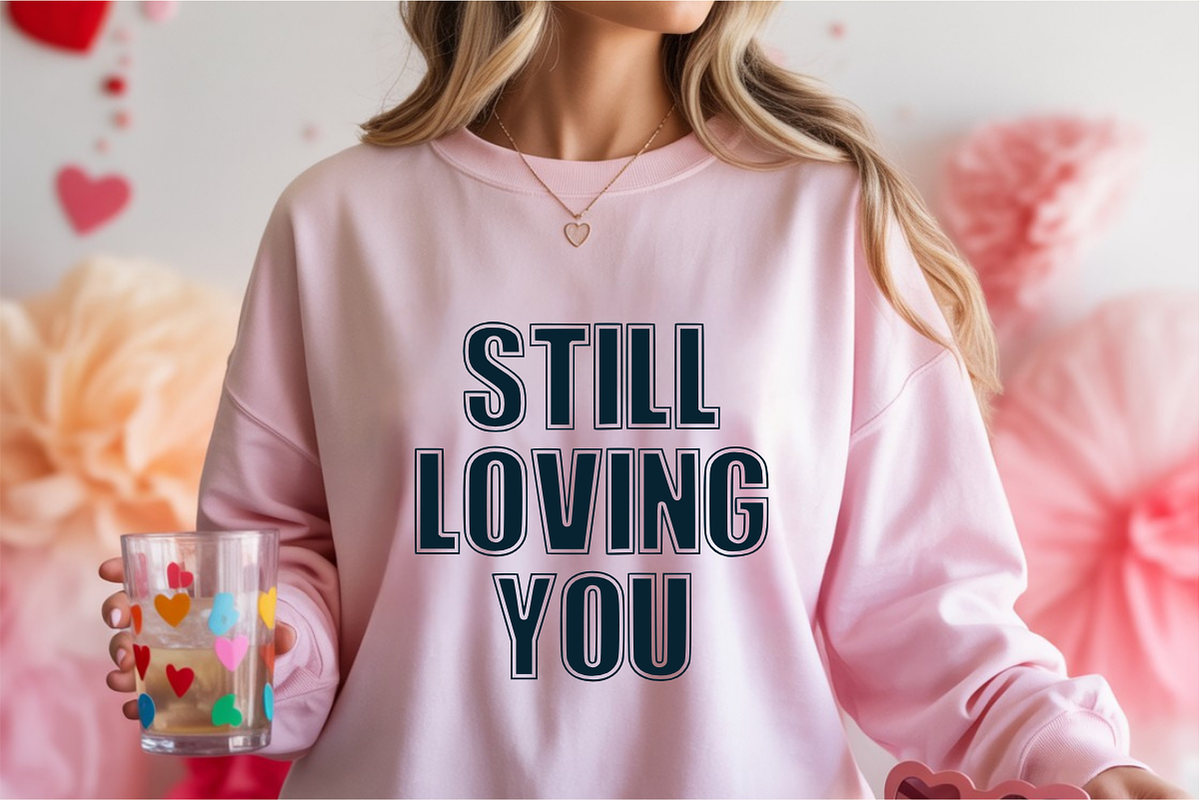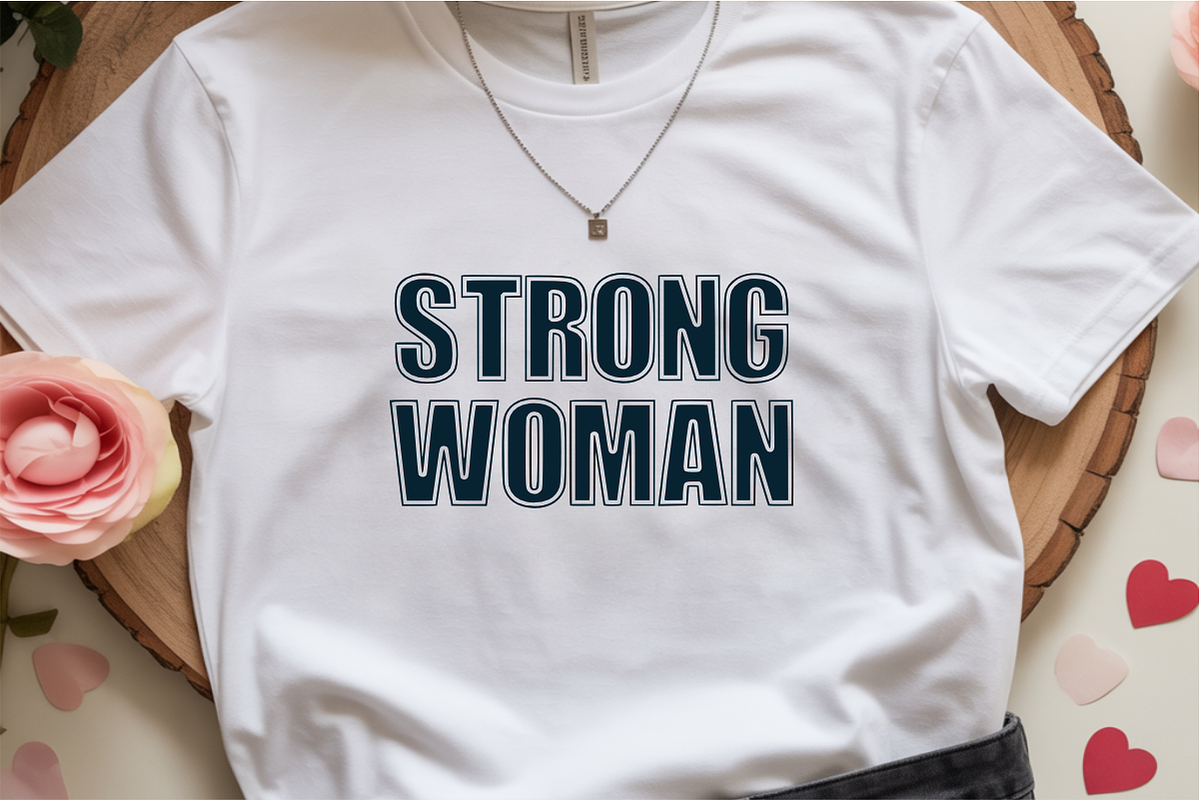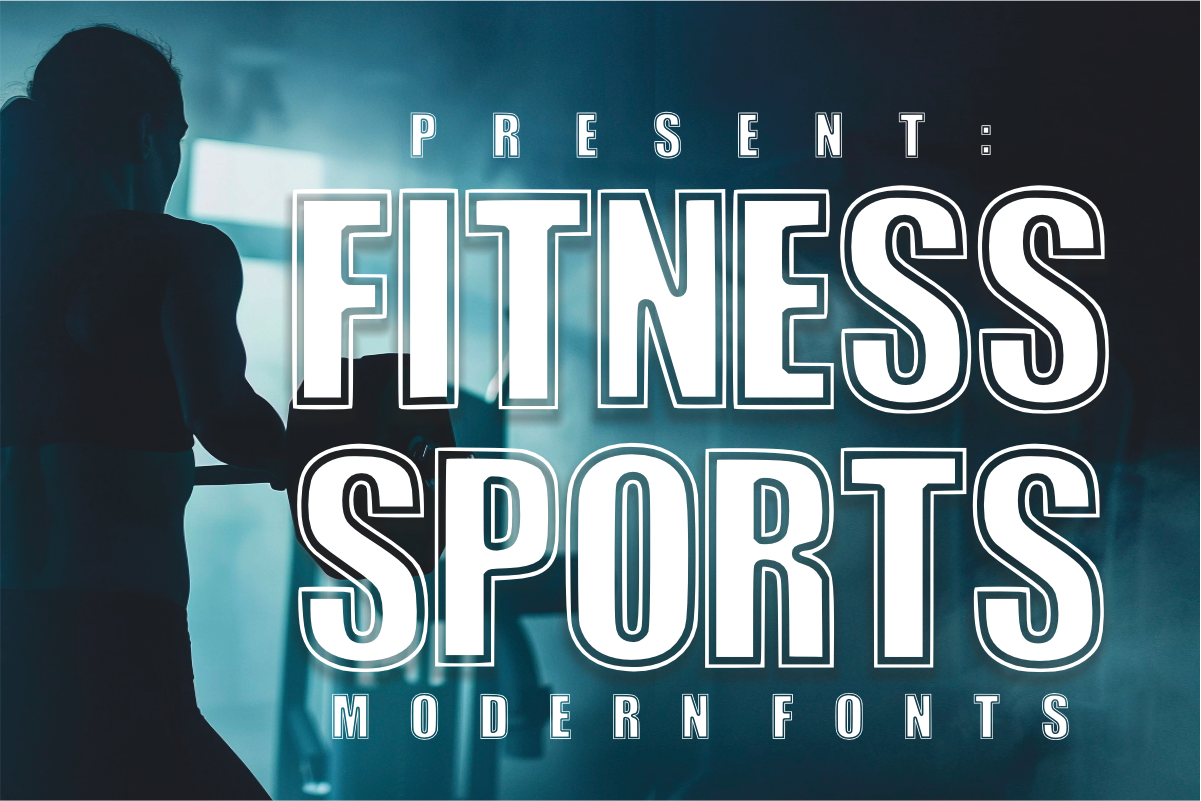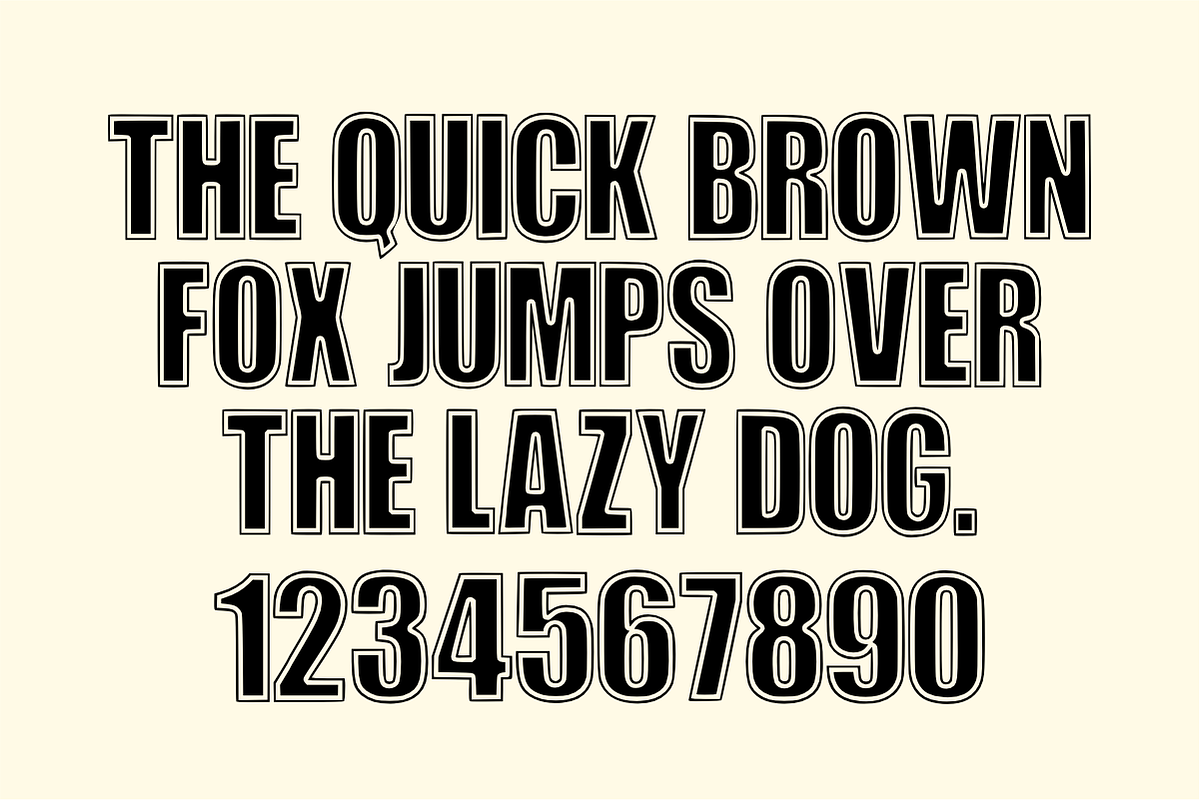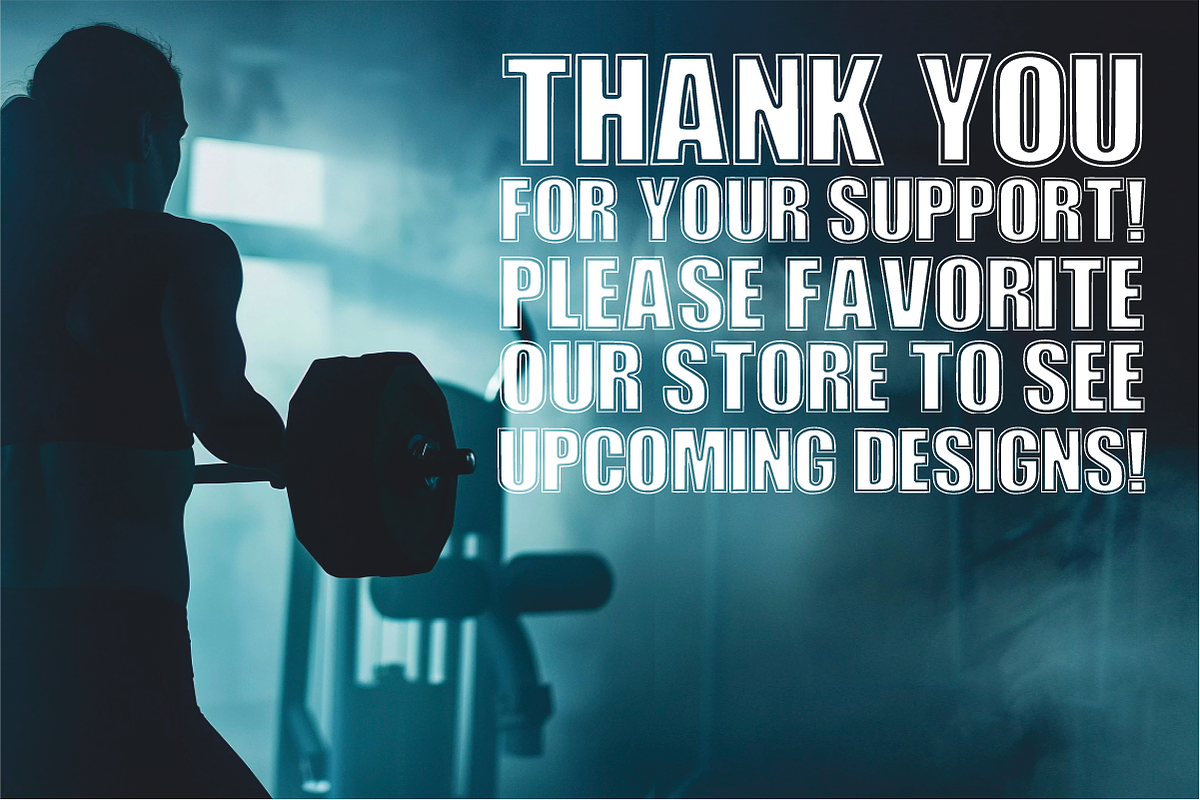
Fitness Sports –Modern Athletic Font
Fitness Sports – Modern Athletic & Bold Display Font 🏃♂️⚡
Ignite your designs with the power of movement!
Fitness Sports is a sleek, modern display font engineered for high-impact athletic branding and high-energy visuals. Featuring a bold sans-serif structure with clean, sharp lines and a condensed silhouette, this font captures the essence of speed, strength, and precision. It is the ultimate choice for designers who need a professional and authoritative typeface that looks as good on a digital screen as it does on sports apparel.
🌟 Why Fitness Sports Stands Out:
Modern Athletic Aesthetic: A contemporary take on classic sports typography, moving away from blocky styles toward a more aerodynamic look.
High Visibility & Legibility: Designed with tall, condensed letterforms that ensure your message remains clear even in fast-paced visual environments.
Dynamic Versatility: Its clean finish makes it perfect for both minimalist modern branding and high-intensity graphic designs.
Character Set: Bold All-Caps Uppercase Letters (A-Z) with a modern athletic feel.
Numbers & Symbols: Full set of numerals (0-9) and essential simple punctuation.